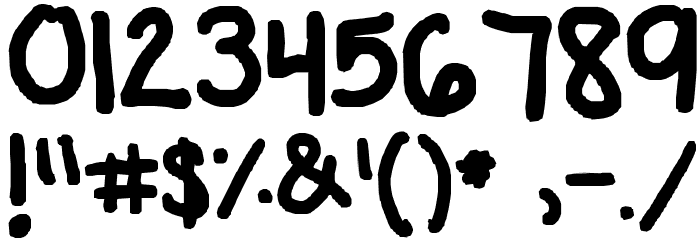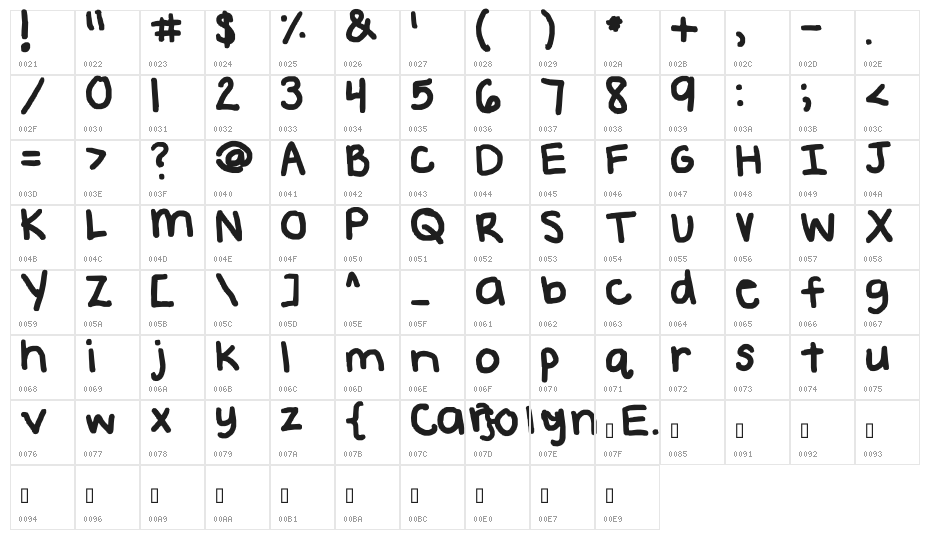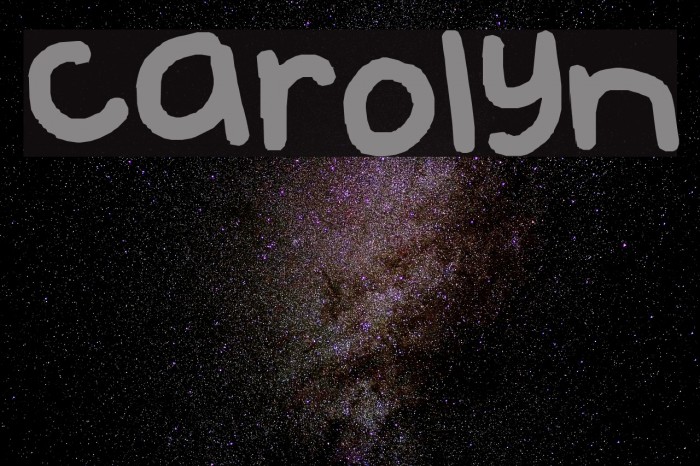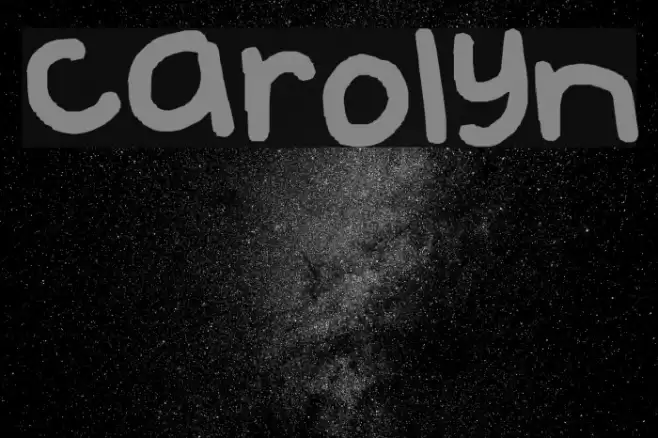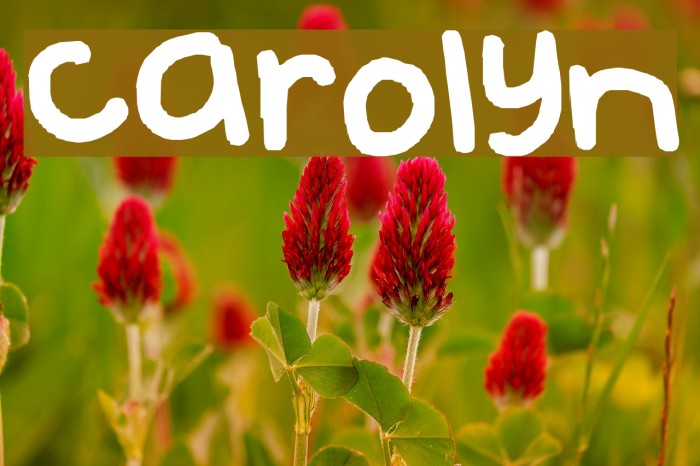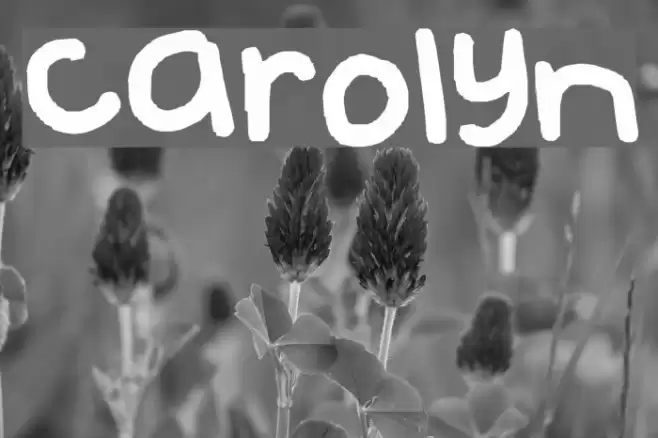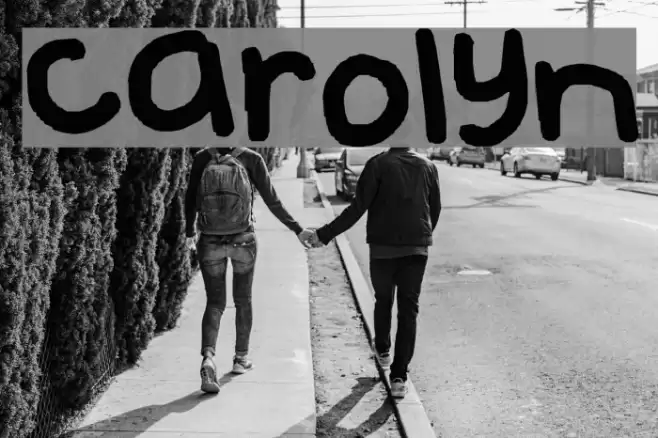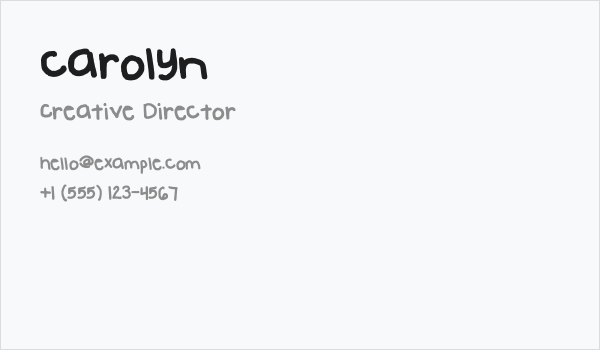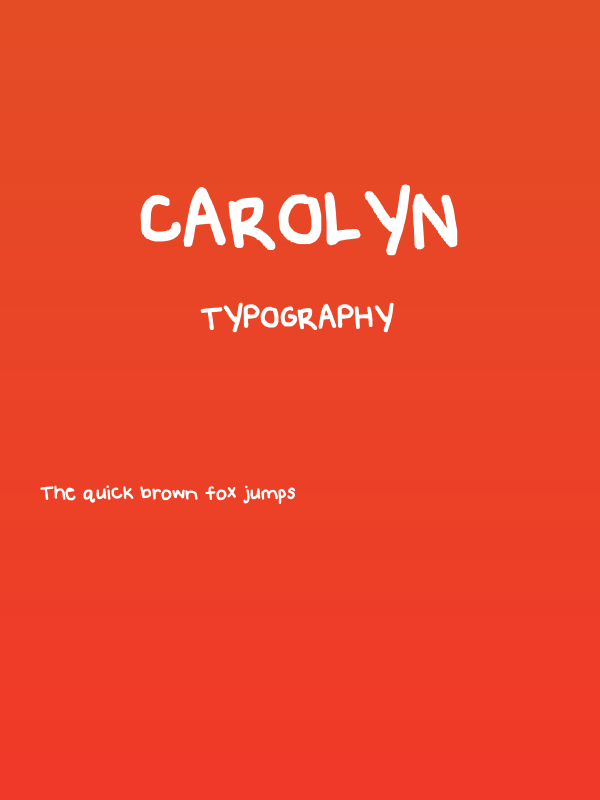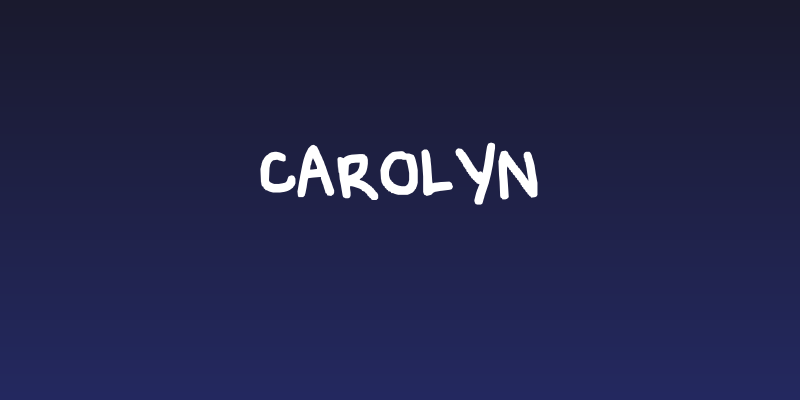
carolyn Font
carolyn Description
This font features a playful and informal style, characterized by its rounded and slightly irregular letterforms. The strokes are bold and consistent, giving it a hand-drawn appearance that is both approachable and friendly. The uppercase and lowercase letters maintain a uniformity in width, while the numbers and special characters complement the overall aesthetic. The font's casual nature makes it suitable for projects that require a personal touch, such as children's books, greeting cards, or informal branding materials. Its legibility is enhanced by the clear distinction between each character, despite the whimsical design.
| Proposed Projects | Ideal for children's books, greeting cards, and informal branding. |